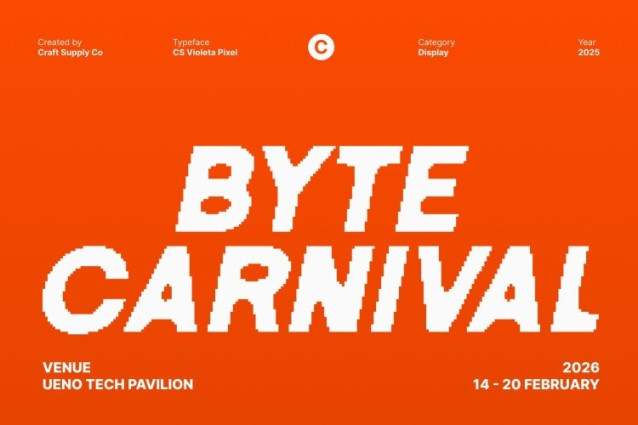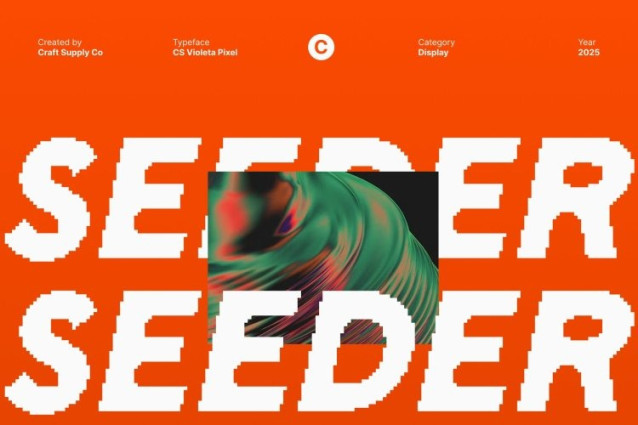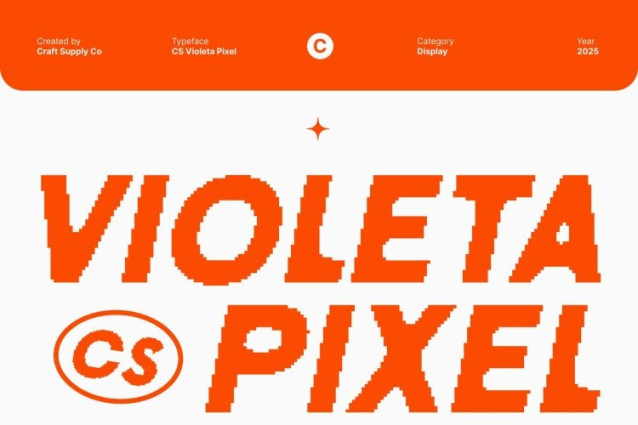
CS Violeta Pixel Font
CS Violeta Pixel Font This font brings the spirit of classic gaming into modern design with its bold pixelated construction. Inspired by the 8-bit arcade aesthetic, this display font delivers blocky, structured forms that instantly evoke retro digital nostalgia.
Modern Digital Aesthetic with Strong Visual Presence
While rooted in retro style, this font embraces modern digital clarity through its clean alignment and sharp pixel edges. The combination of bold proportions and pixel geometry creates a striking visual identity that stands out effortlessly. Its structured rhythm makes the font ideal for futuristic themes, tech-inspired visuals, and digital-forward designs.
Perfect for Game Titles, Posters, and Futuristic Branding
Designed for high impact display use, this font shines in game titles, posters, promotional graphics, and branding that requires a bold and recognizable voice. Whether you’re developing retro-inspired visuals or crafting a modern sci-fi aesthetic, this font provides the perfect balance of nostalgia and forward-thinking style.
Versatile for Creative Digital Projects
This font adapts to a wide range of creative applications from game interfaces and pixel-art graphics to merchandise, logo work, and digital advertisements. Its unique blend of retro arcade charm and modern display strength makes it a powerful asset for designers seeking a standout pixel-driven look.